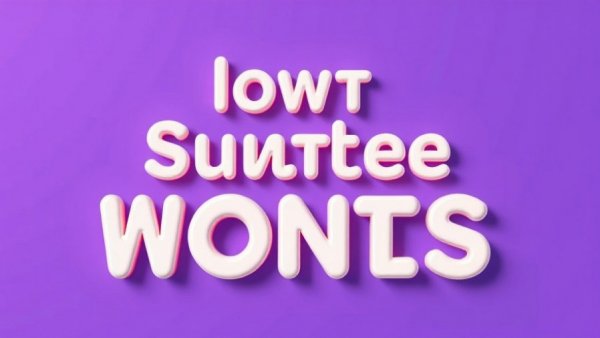
Why Rounded Fonts Will Capture Creativity in 2026: A Designer’s Guide
Rounded fonts for branding on purple background.
Why Rounded Fonts Are Here to Stay in 2026
As we dive into 2026, rounded fonts continue to dominate the design landscape, showcasing their clean and approachable aesthetic. Graphic designers worldwide have embraced these gentle typefaces, recognizing their ability to deliver messages with warmth and clarity. In today’s fast-paced digital world, where attention spans are shorter than ever, rounded fonts offer a breath of fresh air with their easy-to-read, inviting curves. From websites to social media posts, these fonts not only enhance readability but also create a modern and friendly brand identity that resonates across all platforms.
The Versatility of Rounded Fonts in Branding
Whether for a startup or an established company, rounded fonts serve as the backbone of effective branding. Their playful yet professional appearance makes them ideal choices for logos and promotional materials. For instance, fonts like Corva Round combine bold structure with smooth edges, making them perfect for product packaging and digital designs that need to stand out. As outlined in an article from Muzli, the versatility of these typefaces enhances their popularity for branding projects as they carry an air of confidence while maintaining an approachable stance.
How to Choose the Right Rounded Font for Your Project
Ultimately, the selection of a rounded font depends on your project's unique style, audience, and desired impact. A font like Milne Rounded is robust and suitable for headers, creating strong visual interest, while lighter options work better in body text, offering clarity without heavy distractions. This reinforces insights shared in the industry about balancing function and aesthetics—designers must consider how the font interacts with other elements in the layout. Choosing a suitable font not only strengthens your brand but also builds trust with your audience.
Future Predictions: The Evolution of Font Trends
As we move forward, trends in font design will continue to evolve, reflecting societal changes and technological advancements. The clear increase in the use of mobile devices means that designers must consider legibility on smaller screens. Rounded fonts, with their smooth shapes, naturally lend themselves to better visibility. The 2026 trends will likely see an even broader adoption of these typefaces across various media, as designers become more innovative with their designs, as evidenced by the trends highlighted in various design blogs. Whether catering to brands aiming for minimalism or vibrancy, rounded fonts will be key players.